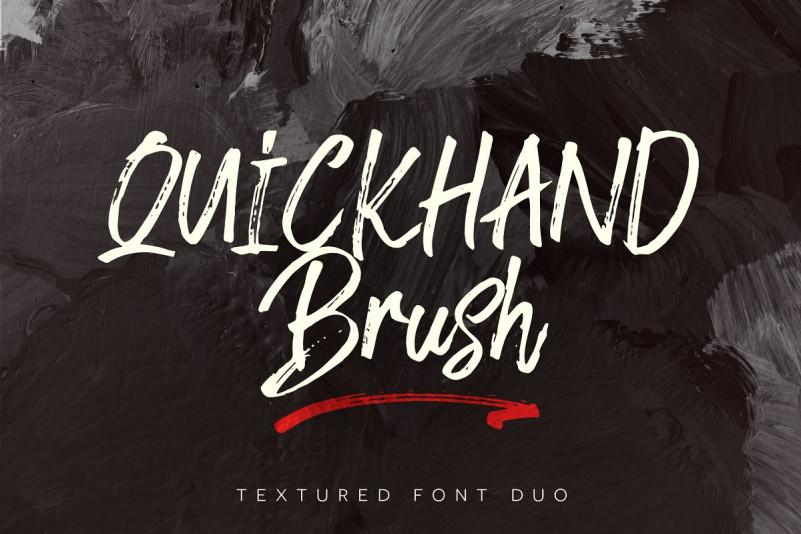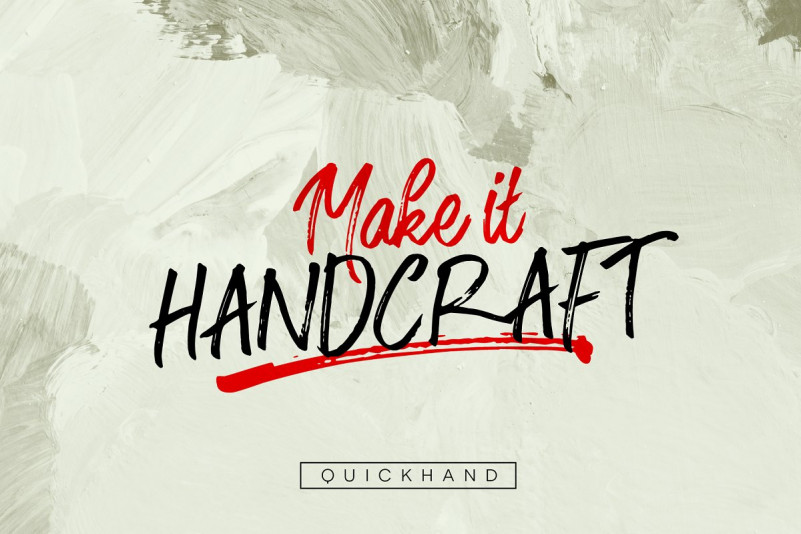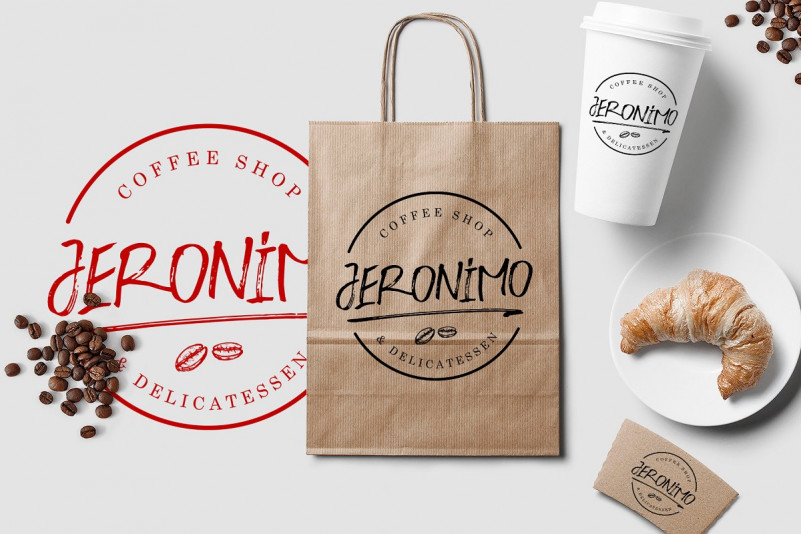
Quickhand Font
Quickhand Font Duo is an intentionally textured font pack designed to grab your audiences eye! Pair the cursive brush font with the fun-loving caps font and the designs are endless. This also comes with a full pack of swashes to give you all you’ll need to get that hand drawn aesthetic that everyone wants!